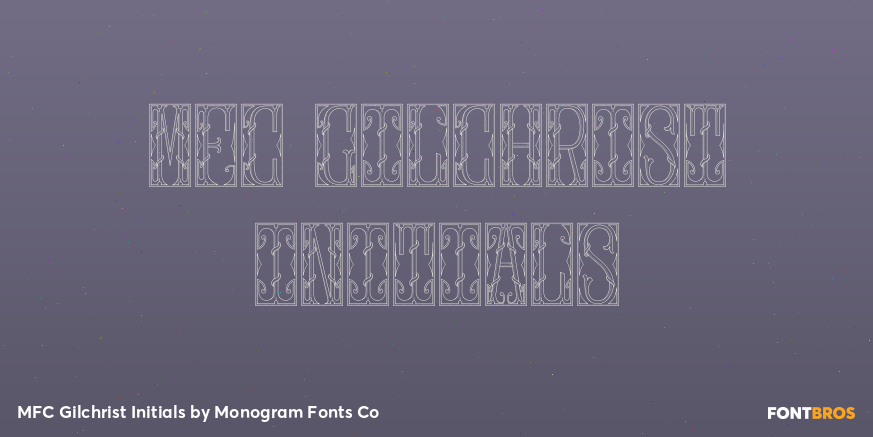
MFC Gilchrist Initials
Font Family by Monogram Fonts Co
Our MFC Gilchrist Monogram served as the springboard for these highly ornamented initial fonts in MFC Gilchrist Initials. Taking the already detailed letterforms within our monogram version, these initials have been cameo-boxed in and lavished with even more dotting detail and stylistic variants. Four styles in all (Regular, Black, Solid, and Split) for one bundled price.